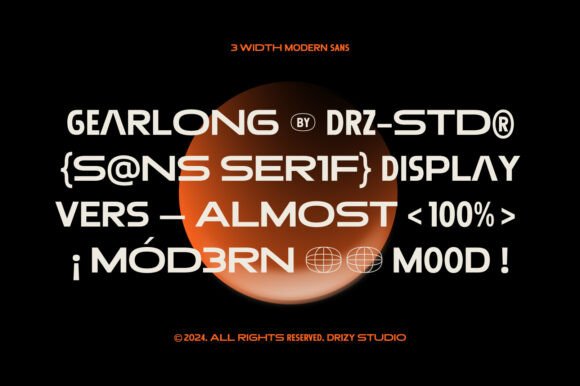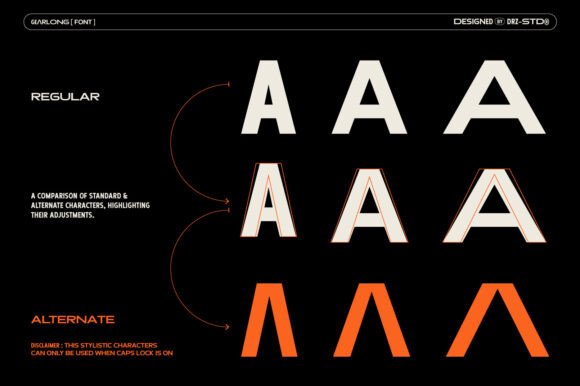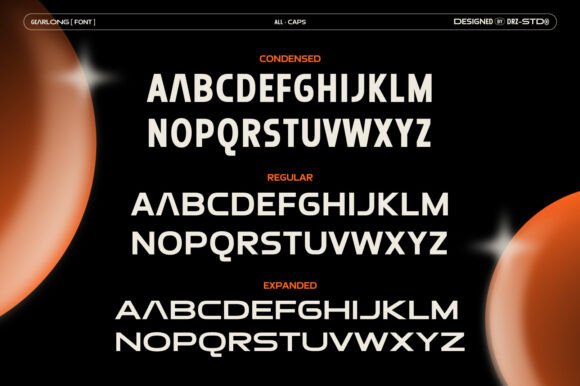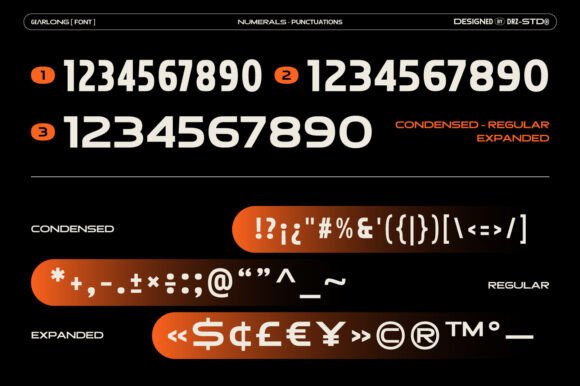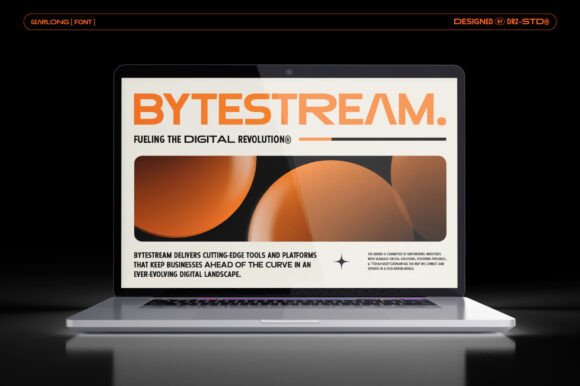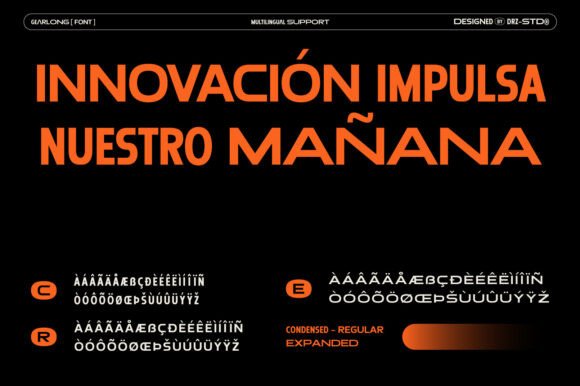
Introducing Gearlong Font: The Ultimate Choice for Modern Designers
In the world of typography, a font can make all the difference in the success of a design project. With the ever-evolving landscape of digital design, it’s essential to have a font that not only looks great but also adapts to various design needs. This is where Gearlong Font comes in – a versatile and contemporary typeface that’s perfect for designers seeking a professional yet approachable look.
Clean Modern Lines and Minimalistic Aesthetic
Gearlong Font boasts clean modern lines and a sleek, minimalistic aesthetic that exudes sophistication and clarity. Its geometric structure and balanced proportions make it an ideal choice for a wide range of design applications, from bold headlines to delicate body text. The font’s simplicity and elegance ensure that your message is delivered with style and precision, making it perfect for designers who value clarity and readability.
Three Distinct Widths for Flexibility
One of the standout features of Gearlong Font is its versatility. The typeface offers three distinct widths, providing flexibility for various design needs. Whether you’re crafting a logo, building a website, or designing a mobile app, Gearlong’s range of widths ensures that you can adapt the font to suit your project’s requirements. From condensed widths for tight spaces to extended widths for emphasis, Gearlong’s flexibility makes it an excellent choice for designers who need a font that can keep up with their creative vision.
Perfect for UI/UX Projects, Visual Identities, and Modern Branding
Gearlong Font is perfectly suited for UI/UX projects, visual identities, and modern branding. Its clean lines, balanced proportions, and geometric structure make it an excellent choice for digital interfaces, ensuring that your design is both functional and aesthetically pleasing. The font’s sophistication and clarity also make it ideal for visual identities and branding, helping you to create a strong and memorable brand presence.
Why Designers Love Gearlong Font
So, what makes Gearlong Font a favorite among designers? Here are just a few reasons:
- Professional yet approachable look: Gearlong’s clean lines and balanced proportions create a professional yet approachable look that’s perfect for a wide range of design applications.
- Flexibility: With three distinct widths, Gearlong offers the flexibility to adapt to various design needs, making it an excellent choice for designers who need a font that can keep up with their creative vision.
- Sophistication and clarity: Gearlong’s geometric structure and minimalistic aesthetic ensure that your message is delivered with style and precision, making it perfect for designers who value clarity and readability.
How to Use Gearlong Font in Your Design Projects
Ready to give Gearlong Font a try? Here are some tips on how to use it in your design projects:
- Pair it with other fonts: Gearlong Font works well with other fonts, so feel free to experiment with different pairings to create a unique look.
- Use it for headlines and body text: Gearlong’s range of widths makes it perfect for both headlines and body text, ensuring that your design is both visually appealing and easy to read.
- Experiment with different widths: Don’t be afraid to try out different widths to see what works best for your design. Gearlong’s flexibility makes it easy to adapt to various design needs.
In conclusion, Gearlong Font is a versatile and contemporary typeface that’s perfect for designers seeking a professional yet approachable look. With its clean modern lines, minimalistic aesthetic, and range of widths, Gearlong offers the flexibility and sophistication needed to elevate your design projects. Whether you’re crafting a logo, building a website, or designing a mobile app, Gearlong ensures your message is delivered with style and precision. So why wait? Give Gearlong Font a try today and take your design projects to the next level!